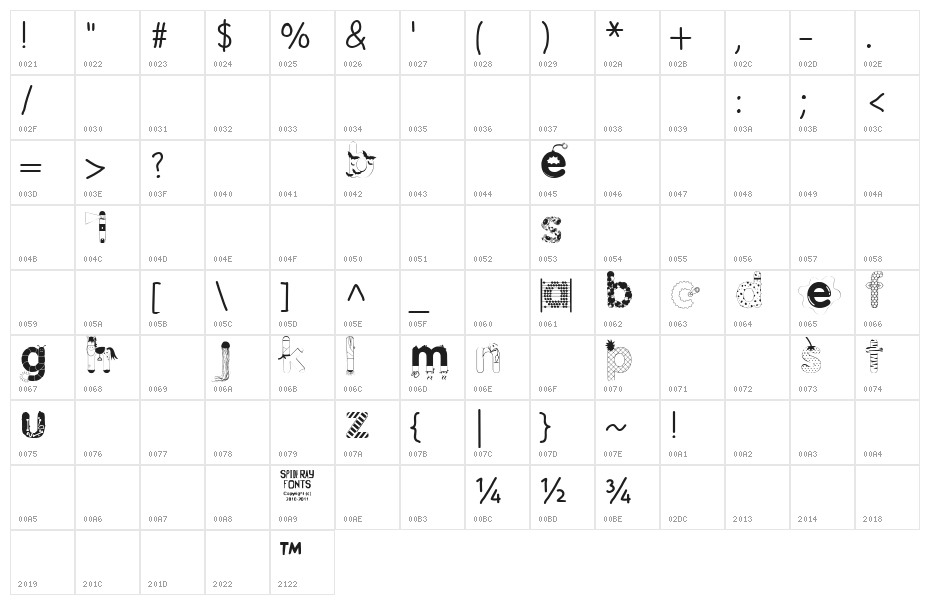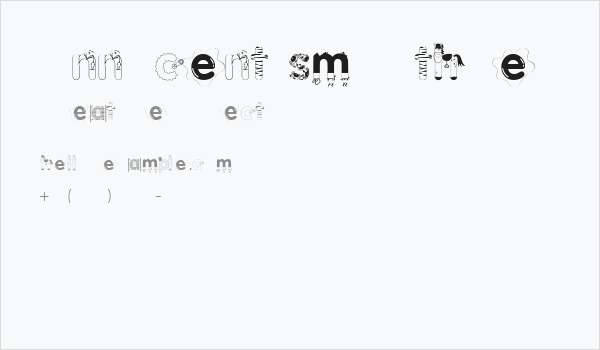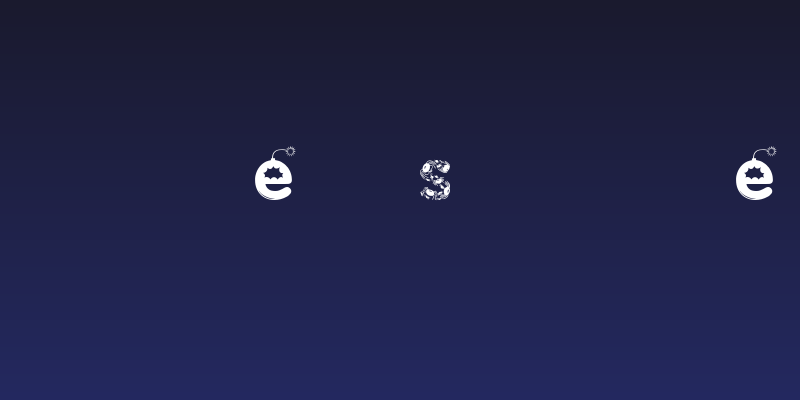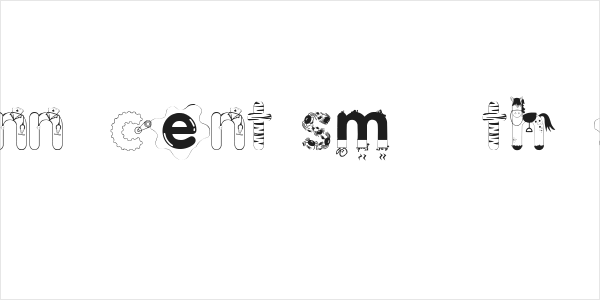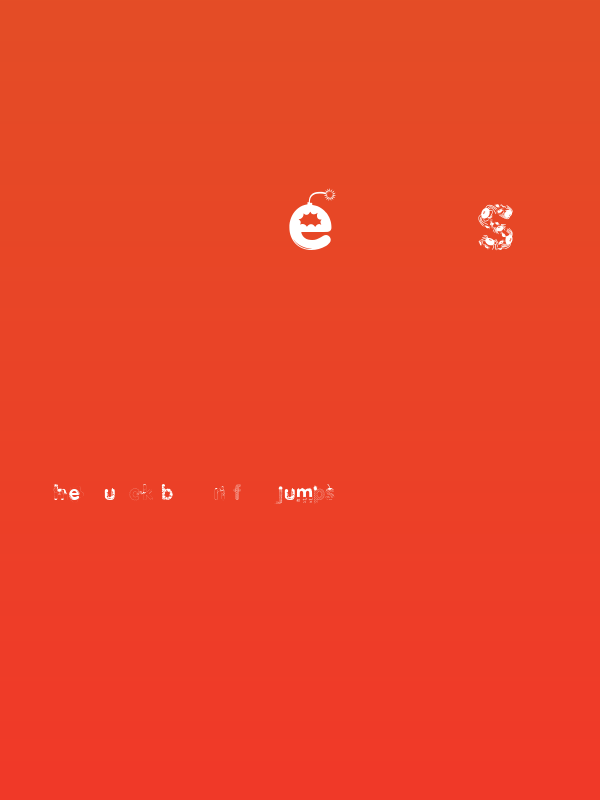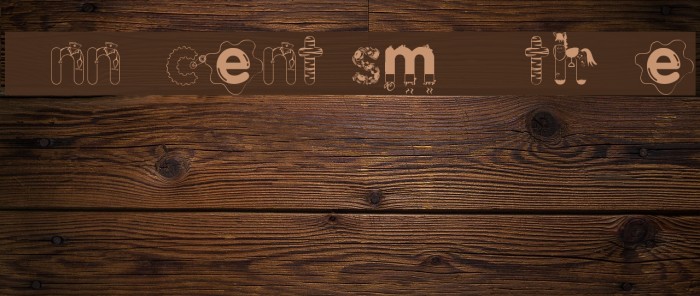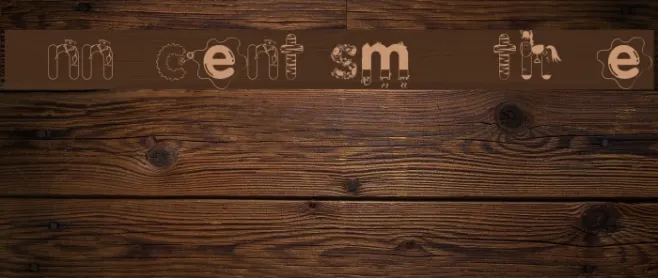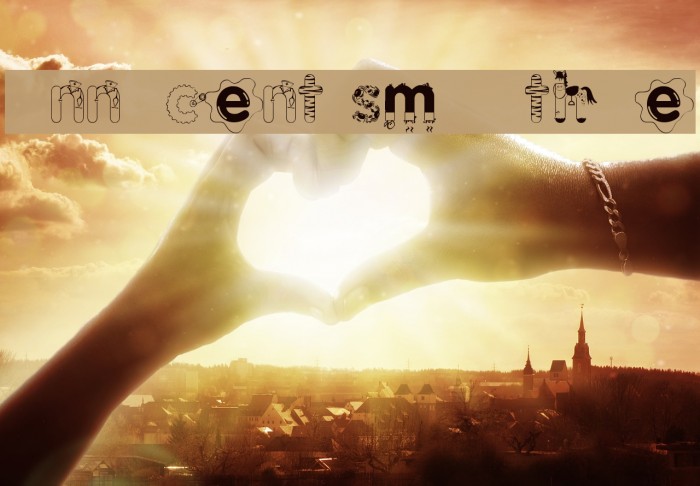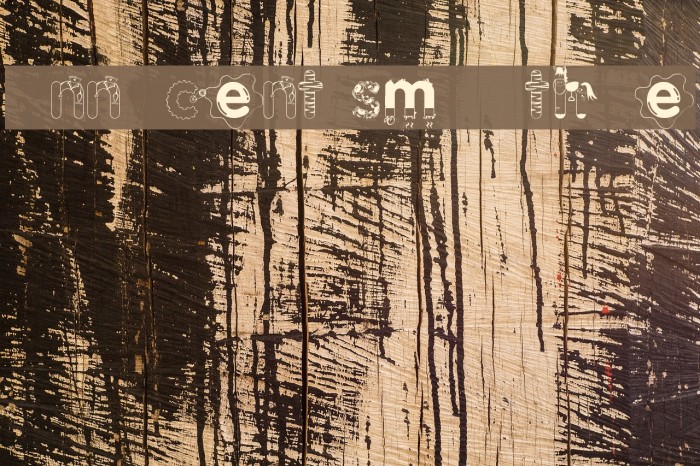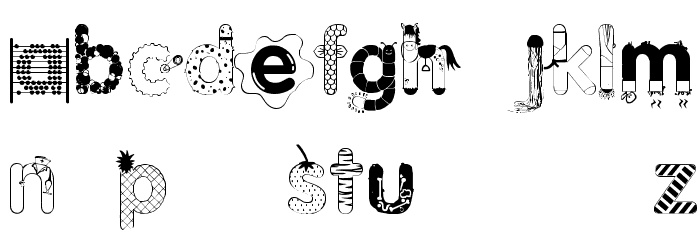
Innocent Smoothie Font
This font is a playful and whimsical collection of characters, each uniquely designed with various textures and patterns. The letters are creatively illustrated, incorporating elements like animals, fruits, and abstract designs, making each character a piece of art. The style is highly decorative, with a focus on individuality and creativity. The font lacks uniformity, with each letter standing out distinctly, making it unsuitable for body text but perfect for creative projects that require a fun and engaging typeface.
| Proposed Projects | Ideal for children's books, playful branding, creative posters, and artistic projects. |